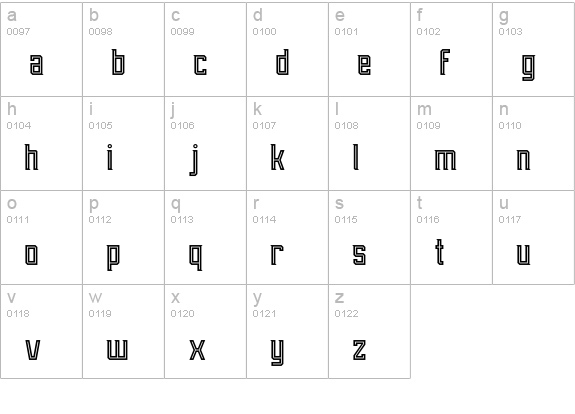
Aleksei-Inline Font Details
Aleksei-Inline is a modern and stylish font that exudes sophistication and elegance. Its sleek and streamlined design makes it perfect for a variety of design projects, from branding to editorial design. The unique inline style adds a touch of creativity and flair to any text, making it stand out and capture attention. What makes Aleksei-Inline even better is that it is completely free to download at FontsMarket.com. This means you can easily access this beautiful font and use it in your projects without any cost. Whether you're a designer looking to add a fresh and contemporary touch to your work or a business owner in need of a striking font for your marketing materials, Aleksei-Inline is the perfect choice. Download it now and elevate your designs with this stunning typeface.